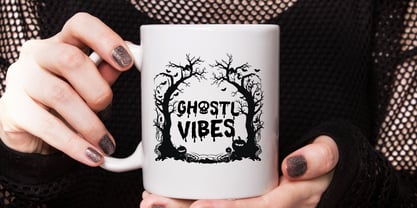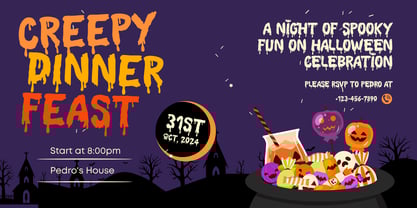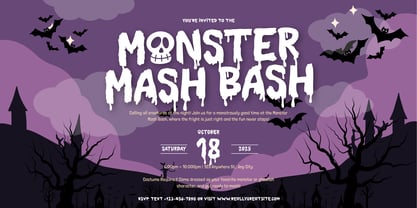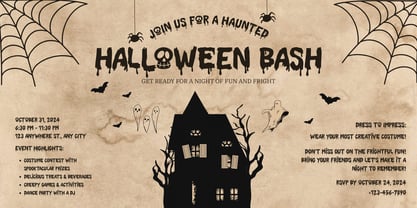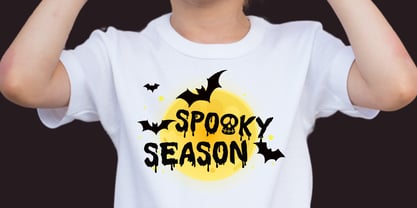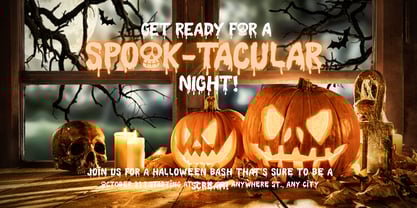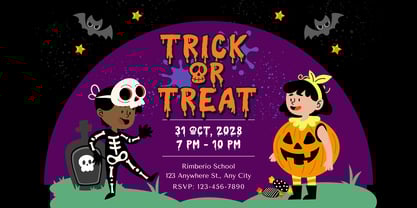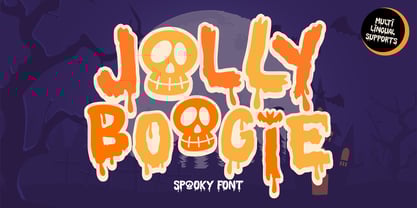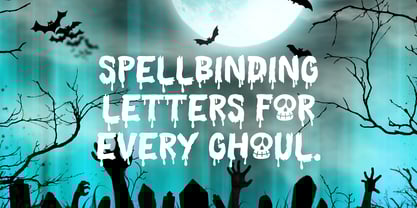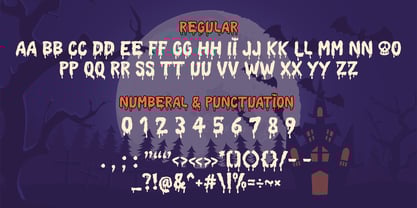
Jolly Boogie
The Jolly Boogie Font Family was designed by Nattha​ Potchanad​ and published by Brown Cupple Typeface. Jolly Boogie contains 1 styles. More about this family
Jolly Boogie – Halloween Decorative Font Add a playful, spooky vibe to your designs with Jolly Boogie, a fun Halloween decorative typeface. Its quirky curves, dripping details, and hand-drawn accents bring any project to life—perfect for posters, party invitations, greeting cards, or seasonal merch. Bold and high-contrast, this decorative font makes headlines pop while its whimsical strokes create a festive haunted-house feel. Ideal for designers, crafters, and anyone looking to sprinkle a cheerful yet spooky touch on their work.